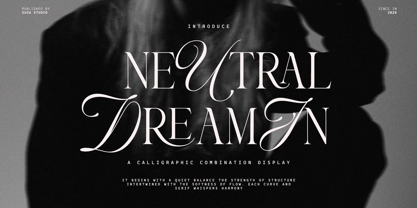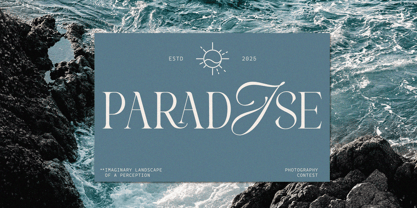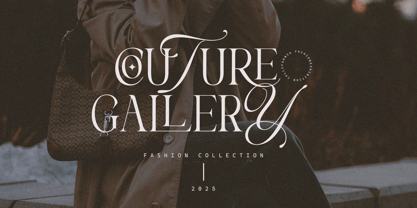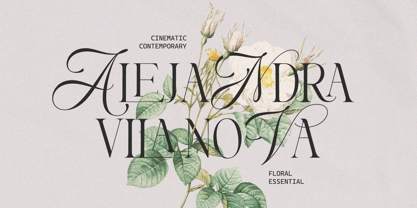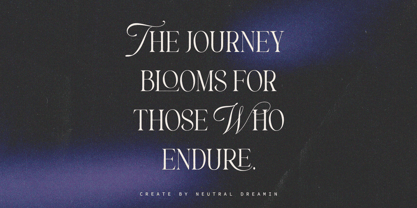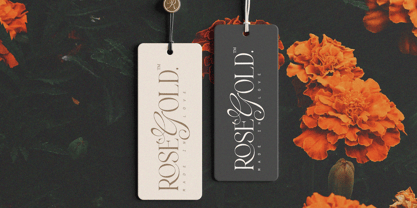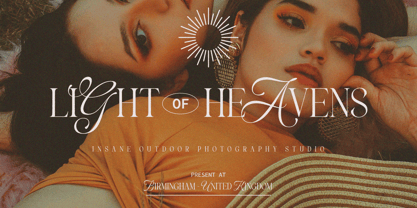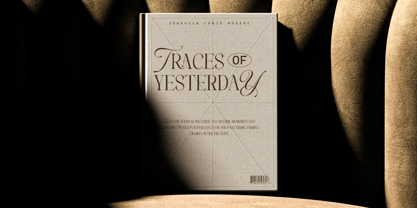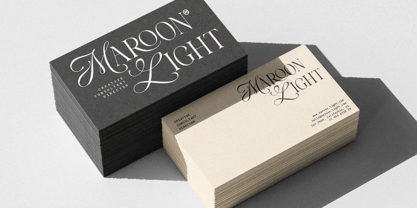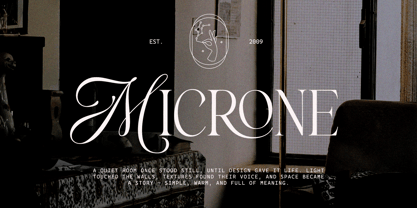
Neutral Dreamin
by Suza Studio
The Neutral Dreamin Font Family was designed by Zikrillah and published by Suza Studio. Neutral Dreamin contains 1 styles. More about this family
Neutral Dreamin is a captivating blend of calligraphy and serif, exuding timeless elegance and nostalgic charm that enhances every design. This unique blend brings a touch of sophistication to any project, making it an ideal choice for branding, editorial layouts, and social media visuals. With its versatile aesthetic, Neutral Dreamin enriches your design toolkit, offering endless creative possibilities for refined and stunning results. PUA-Encoded Characters – Fully accessible without additional design software. The fonts support ligatures, alternates, and are multilingual.
Designers: Zikrillah
Foundry: Suza Studio